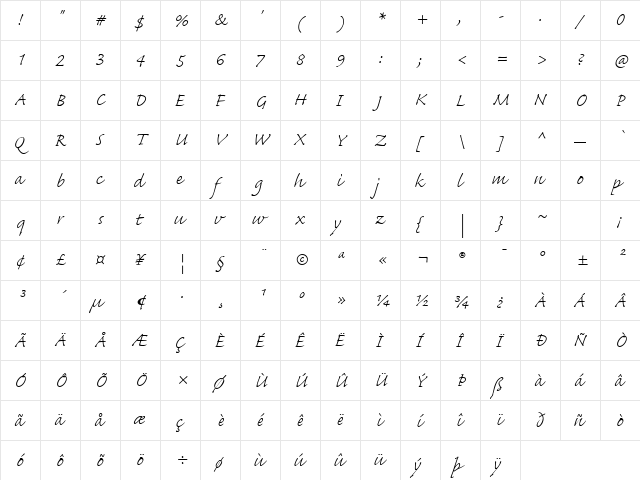
Caflisch Script Pro Light Regular Font Preview
| Designer | Robert Slimbach |
Design Context for Caflisch Script Pro Light Typeface
Caflisch Script Pro Light brings a calligraphic fluidity to the page — its connecting strokes and expressive curves give it an unmistakably human quality. Its slender proportions lend an understated elegance to any composition.
Font Pairing: Combine Caflisch Script Pro Light with a simple geometric sans for maximum contrast — the tension between flowing curves and clean structure is a classic typographic pairing.
Pro Tip: Pair Caflisch Script Pro Light with a clean sans-serif for supporting text. The contrast between fluid script and geometric structure creates an elegant typographic hierarchy.